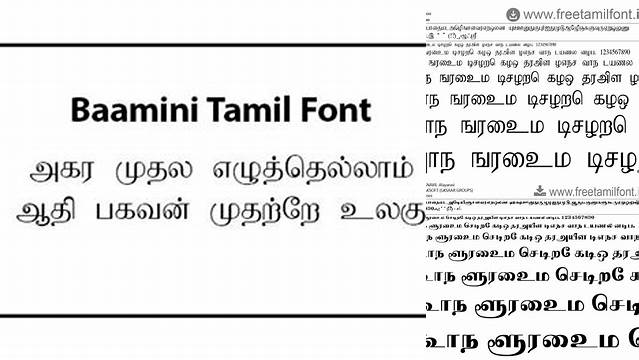
Alright, folks, let's dive into the world of Tamil fonts, specifically the ever-popular Bamini font, and how you can get your hands on a free download. If you're looking to spice up your Tamil typing game, whether it's for personal projects, professional documents, or just some fun social media posts, then you're in the right place. I'll walk you through everything you need to know about the Tamil Bamini font, from its history to where you can snag it for free, and even some tips and tricks to make your Tamil typing experience a breeze. So, grab a cup of coffee, get comfy, and let's get started. This guide will be your one-stop shop for all things Bamini Tamil font free download-related.
1. Understanding the Tamil Bamini Font: A Quick Overview
Before we jump into the Tamil Bamini font free download process, it's essential to understand what makes this font so special. Bamini font is a popular choice for Tamil script because it's designed to be easy to read and visually appealing. It's a Unicode font, which means it supports a wide range of characters and symbols, making it compatible with various devices and operating systems. The font is widely used in various domains, from educational materials and government documents to creative writing and digital media. Because of its broad usage, it has become a standard in the Tamil-speaking world. Moreover, the Bamini font is designed with a clear and legible style, making it accessible to a broad audience, from young children to older adults. Its distinct design ensures that the nuances of the Tamil script are accurately represented, preserving the linguistic integrity of the language. Understanding the design of Bamini font can significantly improve your experience, whether you're a seasoned writer or a beginner. Furthermore, Bamini font is free to use and readily available, making it an excellent option for anyone wishing to use the Tamil script in their creative or professional endeavors. Its accessibility and ease of use make it a top choice for various projects. The clear, simple design ensures the reader can easily interpret the content. This is a key factor in its widespread adoption. It is a versatile and accessible font for a wide range of applications. The Bamini font also stands out because of its adaptability. The creators of Bamini font carefully considered the needs of Tamil speakers when designing the font, resulting in a readable and reliable tool. This careful design ensures that every character and symbol of the Tamil script is accurately displayed. The use of this font helps preserve the cultural and linguistic identity of the Tamil language. Choosing the Bamini font ensures that your written content is both accessible and visually appealing to a wide audience.
2. Why Choose the Bamini Font for Your Tamil Typing Needs?
So, why should you choose the Bamini font when there are many Tamil fonts available? Well, there are several compelling reasons. First and foremost, the Bamini font is incredibly easy to read, which makes it a great option for both long-form documents and shorter messages. Its clear design reduces eye strain and ensures that the reader can quickly grasp the content. The Bamini font is also designed with the specific characteristics of the Tamil script in mind. The font's creators carefully considered the shape and form of each character, leading to a smooth and harmonious writing experience. In addition to being easy to read, the Bamini font is also widely supported. It is compatible with most operating systems and software, meaning you won't have to worry about compatibility issues when using it. This compatibility makes it a practical choice for both personal and professional use. Moreover, because the Bamini font is free and readily available, it is an accessible option for all users. This accessibility removes financial barriers, allowing you to focus on your content rather than the cost of the font. The Bamini font is not just about convenience. Using it allows you to contribute to the preservation of the Tamil language and culture. The widespread use of this font helps to ensure the continued relevance of the Tamil script in the digital age. The ease of use, readability, and broad compatibility make the Bamini font an excellent choice for anyone who wants to write in Tamil. It offers a simple and elegant way to represent the beauty and complexity of the Tamil language. The ability to freely download and use the font makes it an accessible option for all. When you choose Bamini font, you're not just choosing a typeface; you're choosing a tradition of clear and culturally significant communication.
2.1. Ease of Readability and Visual Appeal
One of the key reasons people love the Bamini font is its superb readability. The font is designed to make reading Tamil text a comfortable experience, reducing the strain on your eyes. The clear and distinct shapes of the characters allow for effortless comprehension, making it perfect for lengthy documents, articles, or even just casual messages. This readability is essential for ensuring your audience can easily understand your content. The font's visual appeal also plays a significant role. The Bamini font has an elegant and balanced design that makes the text look attractive and professional. It's not just about functionality; it's also about the aesthetic quality of your writing. This careful balance of function and design makes it ideal for everything from educational materials to creative projects. The font's designers carefully considered the balance between clarity and aesthetics, ensuring that the final product is both easy to read and visually pleasing. This makes the Bamini font a preferred choice for a wide range of uses, as it adds value to both the writer and the reader. Whether creating formal reports or casual social media posts, the Bamini font ensures your text is easy on the eyes and maintains a sense of professionalism. The design of Bamini font supports easy comprehension, and its elegance adds to the overall quality of your documents.
2.2. Wide Compatibility Across Devices and Software